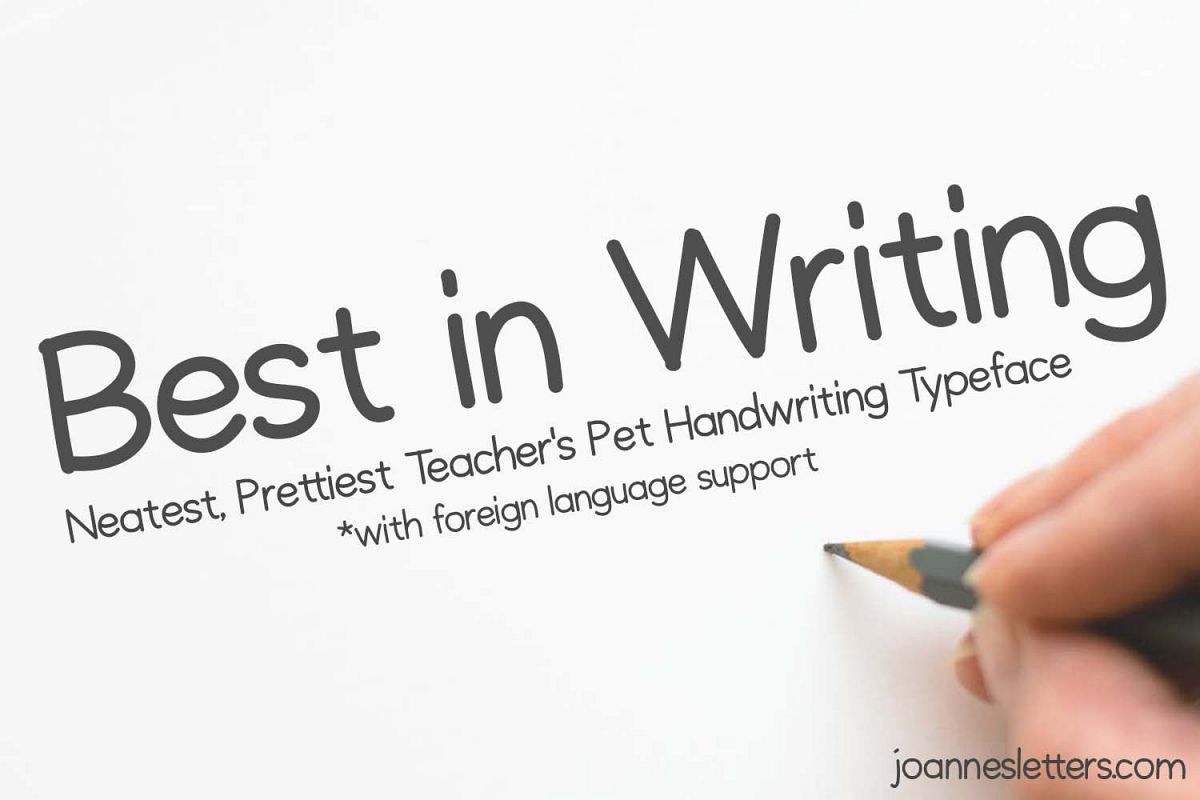
Best in Writing Neatest Prettiest Teacher's Pet Handwriting
Best In Writing
Introducing Best In Writing Print typeface
This super clean typeface is good for graphic designs like posters, t shirts, mugs, invitations, and more!
Best in Writing Neatest Prettiest Teacher's Pet Handwriting